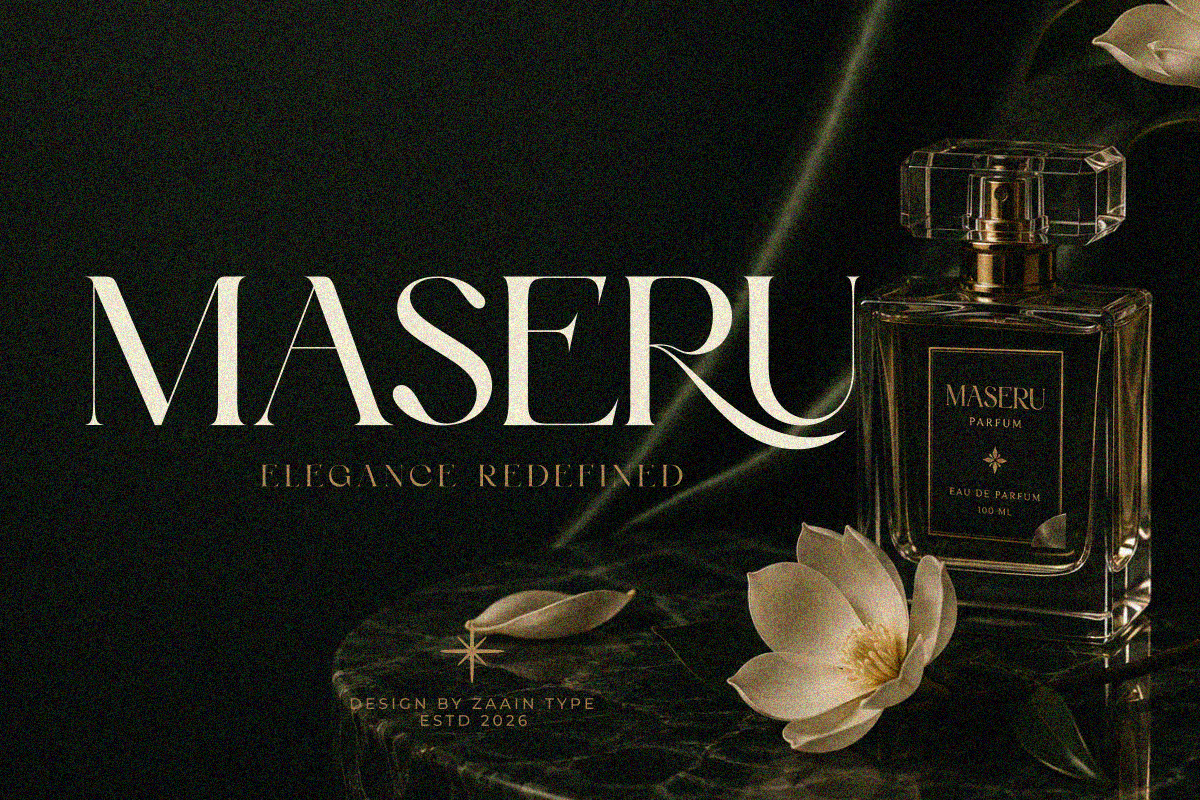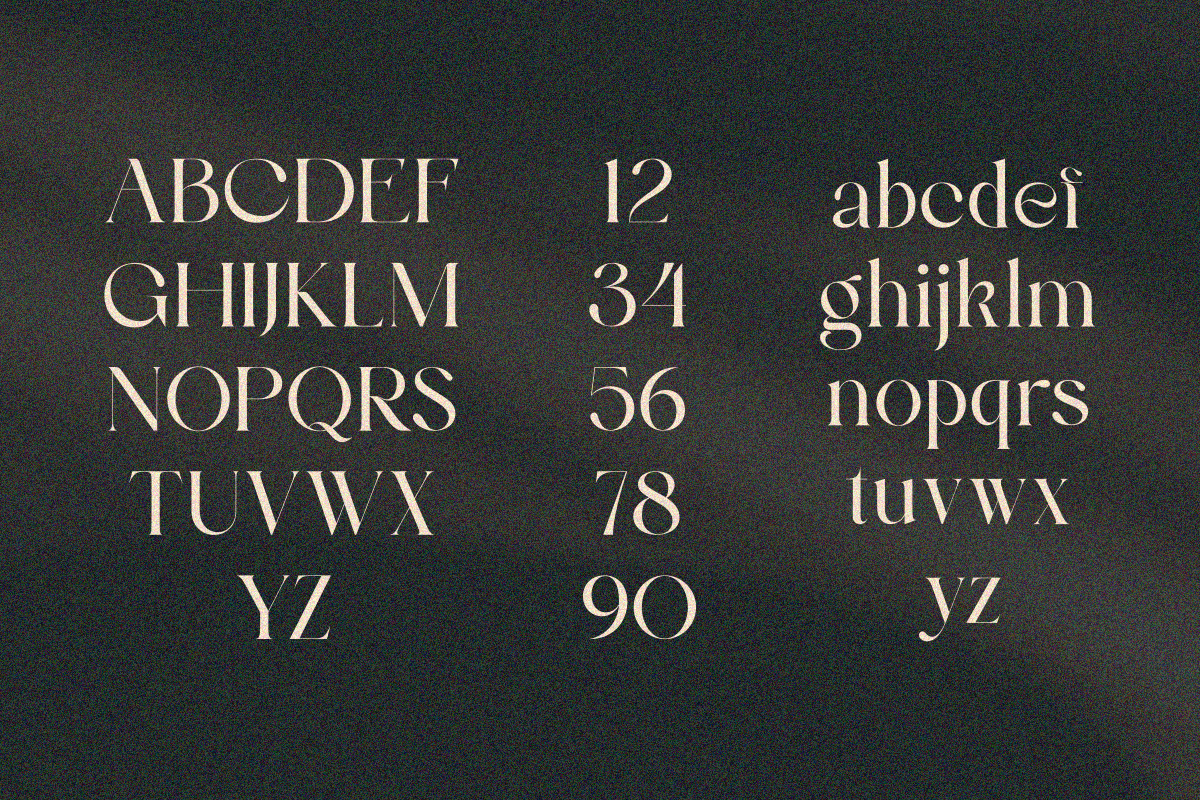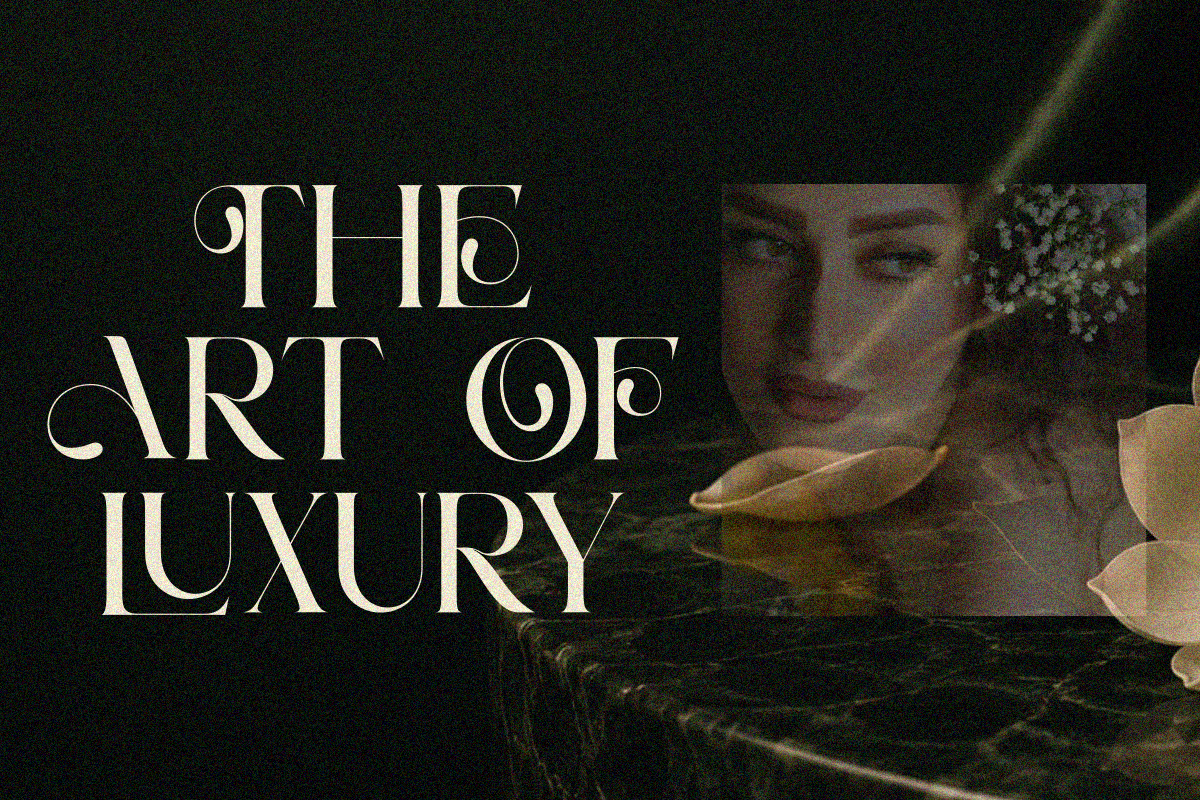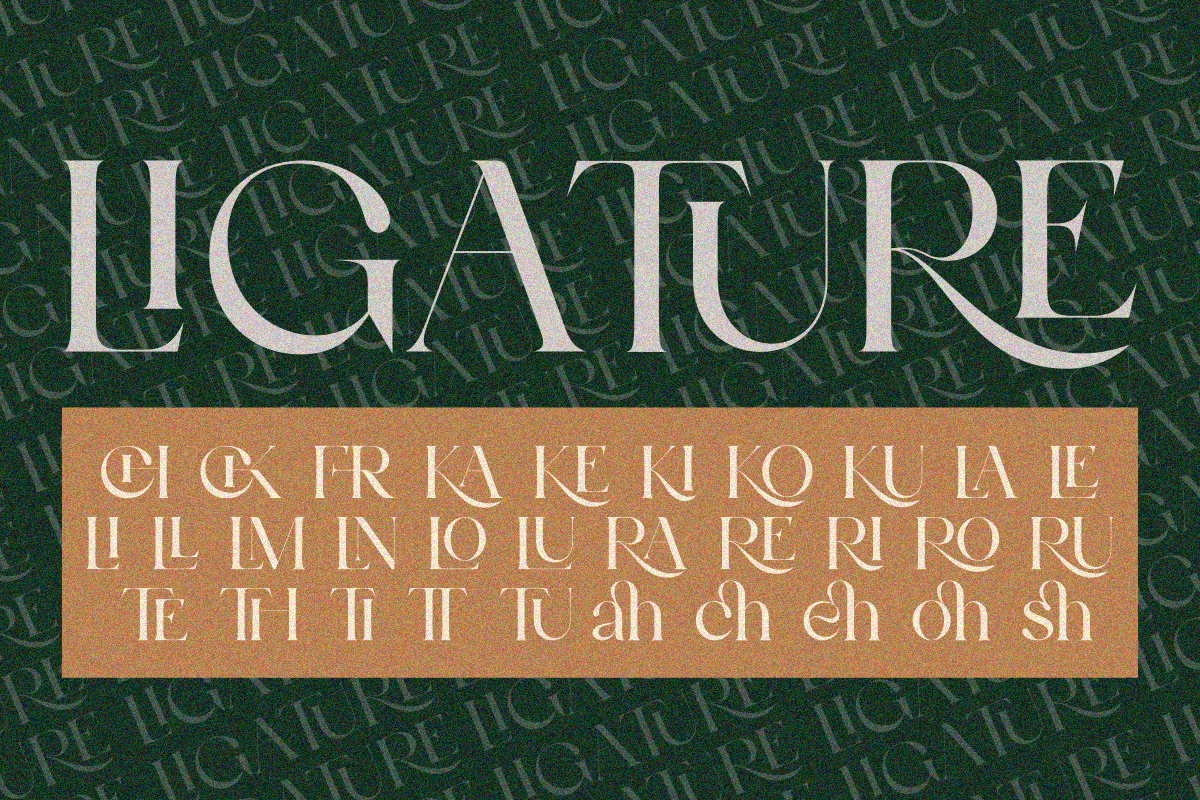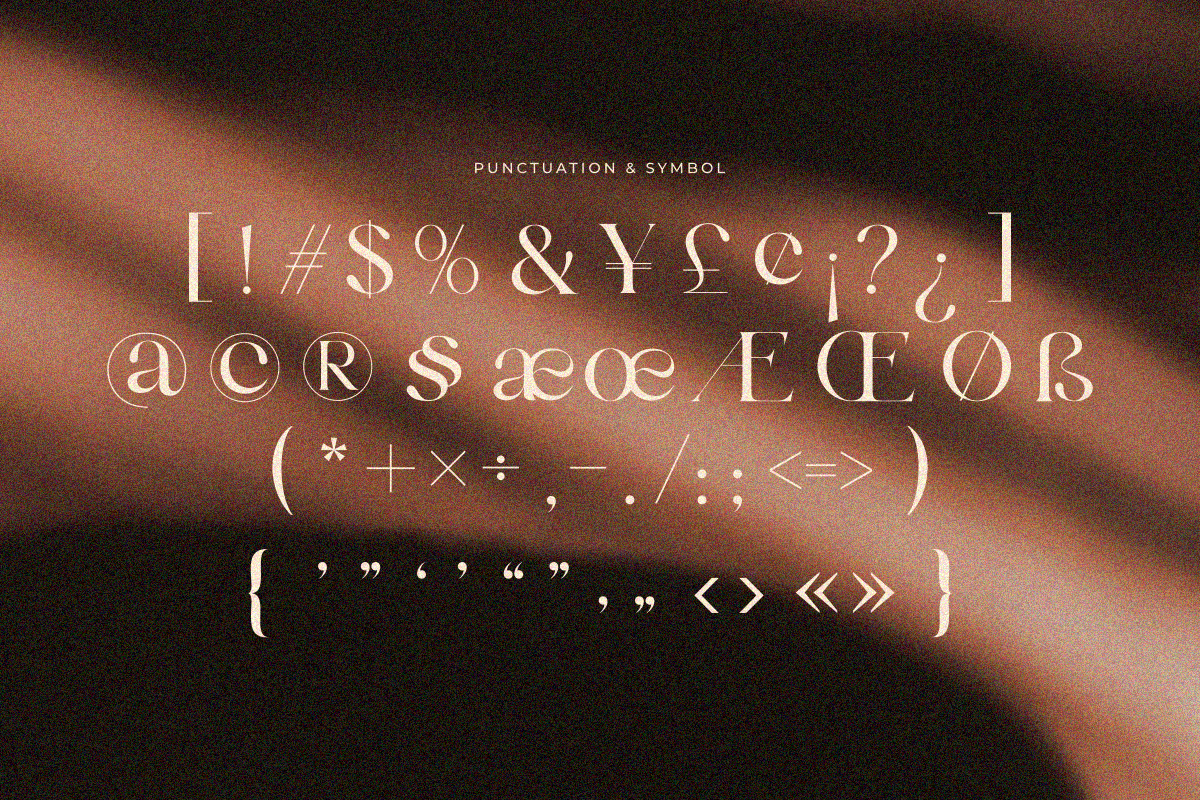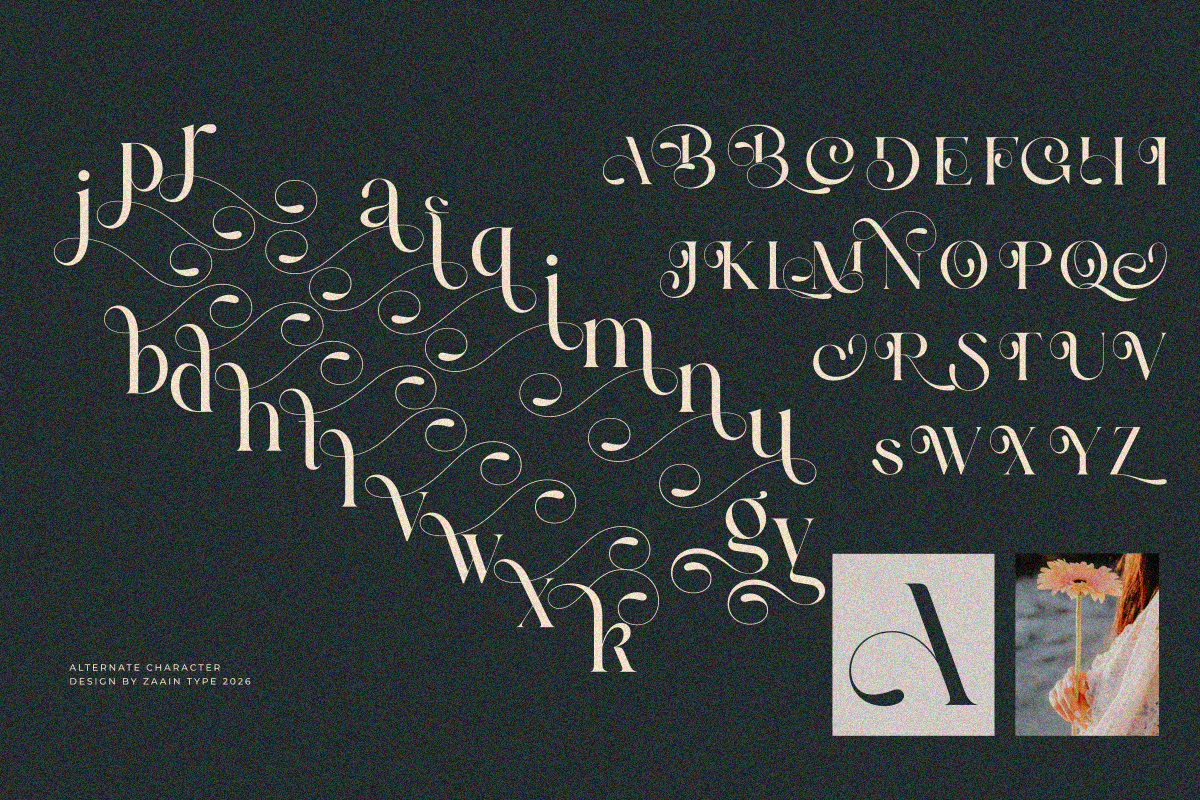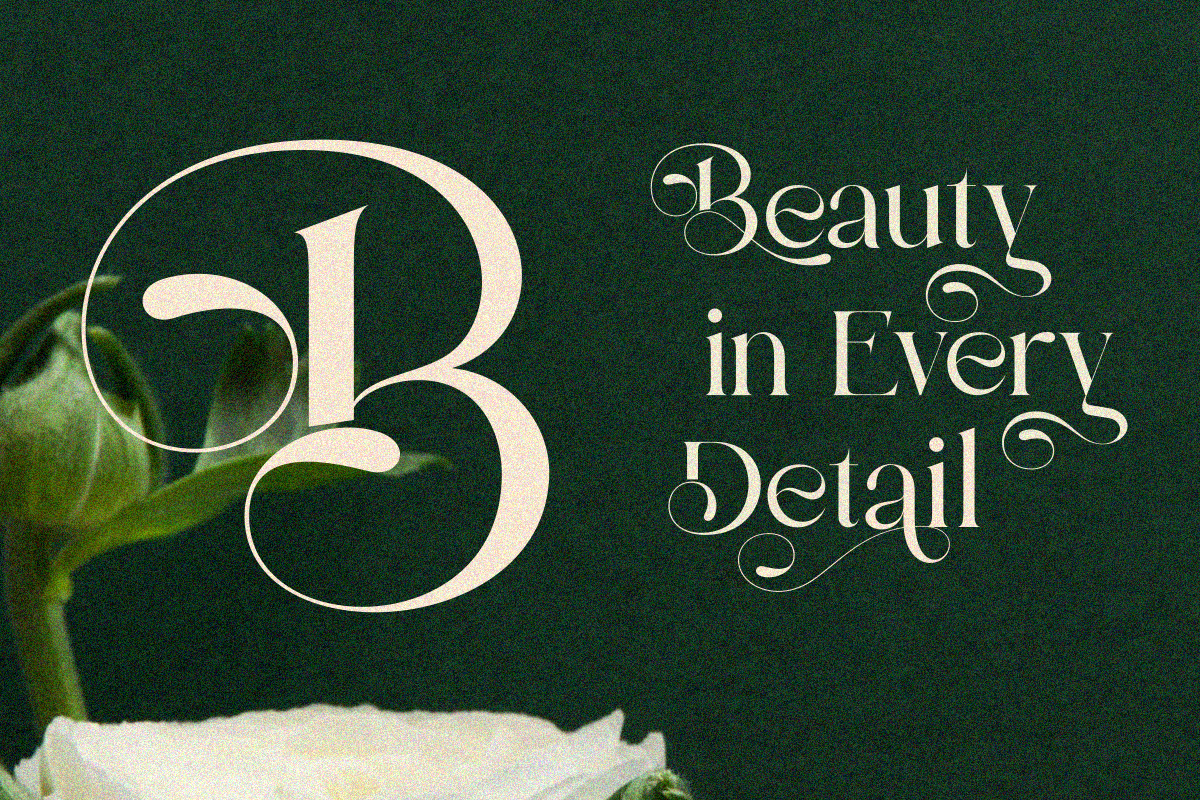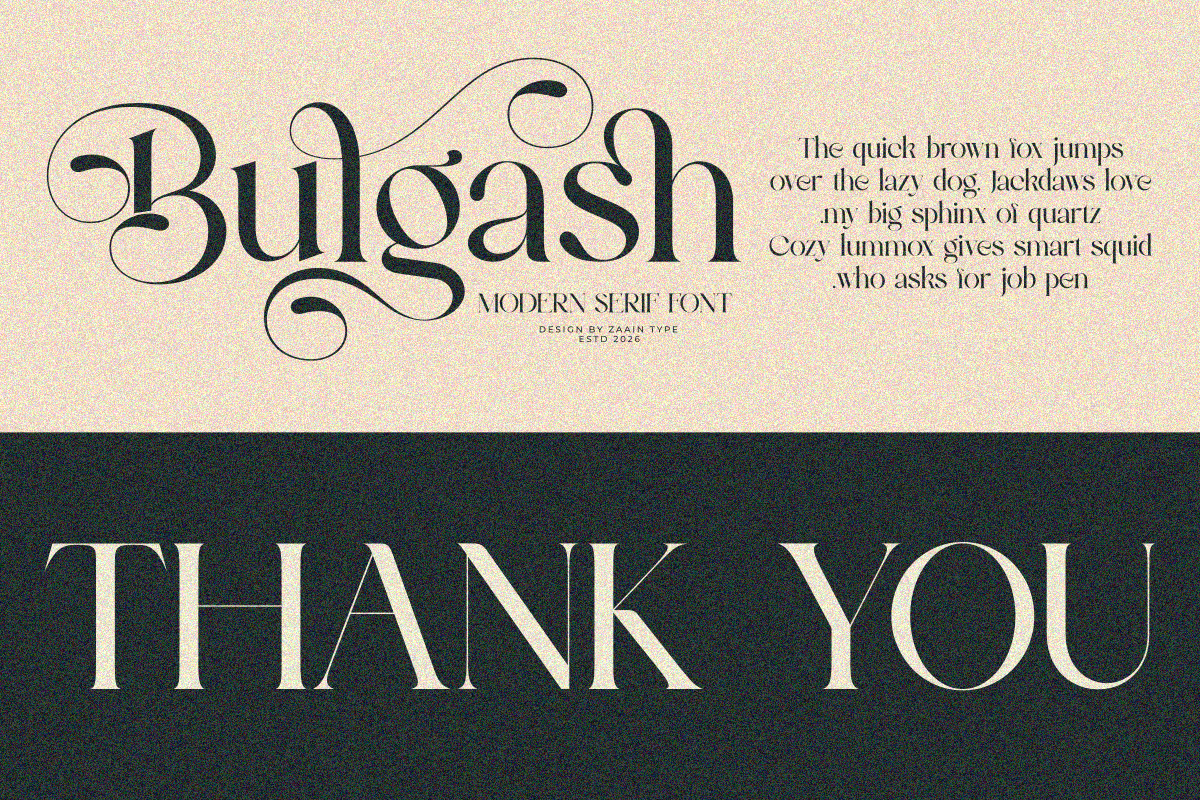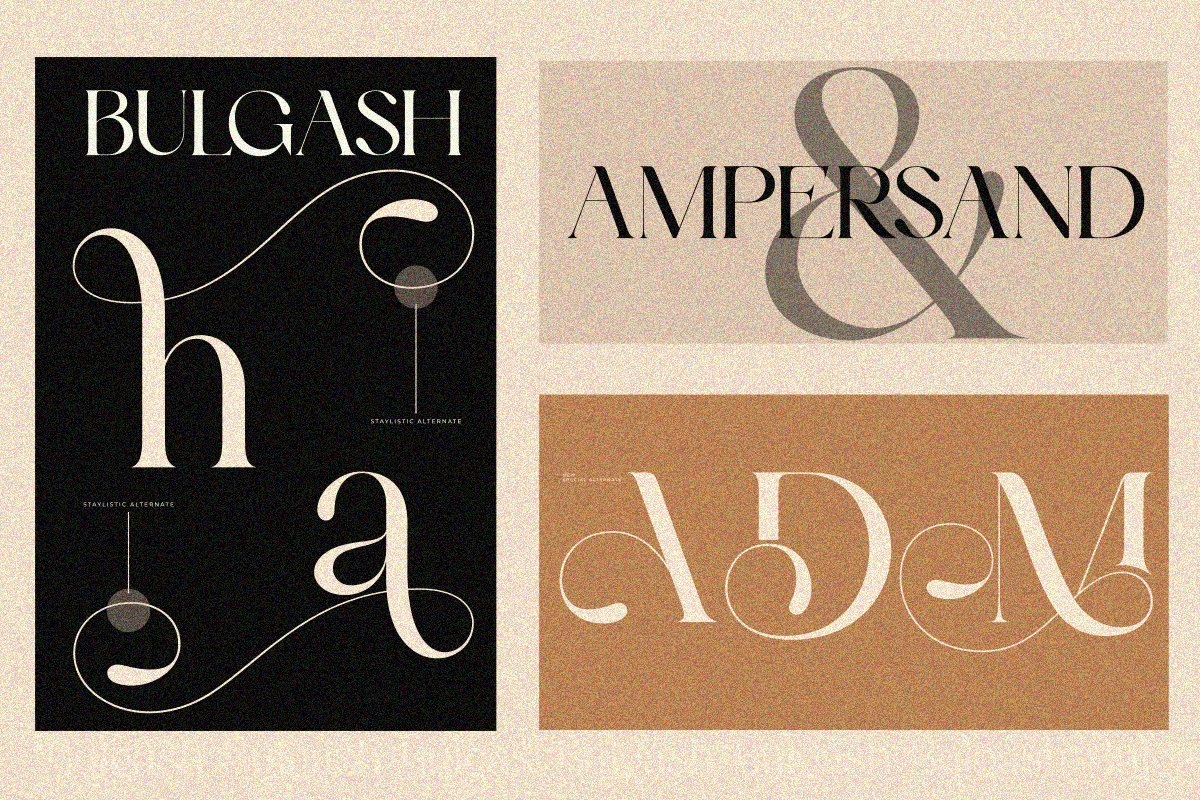
Bulgash
Bulgash is an elegant serif typeface that blends classic sophistication with a refined contemporary character. Its graceful proportions, high-contrast strokes, and carefully crafted letterforms create a luxurious and polished appearance.
Perfect for fashion branding, editorial design, luxury logos, beauty products, perfume packaging, invitations, magazines, and premium stationery, Bulgash adds a timeless and sophisticated touch to every design. Its distinctive details make it especially suitable for projects that require an elegant and memorable visual identity